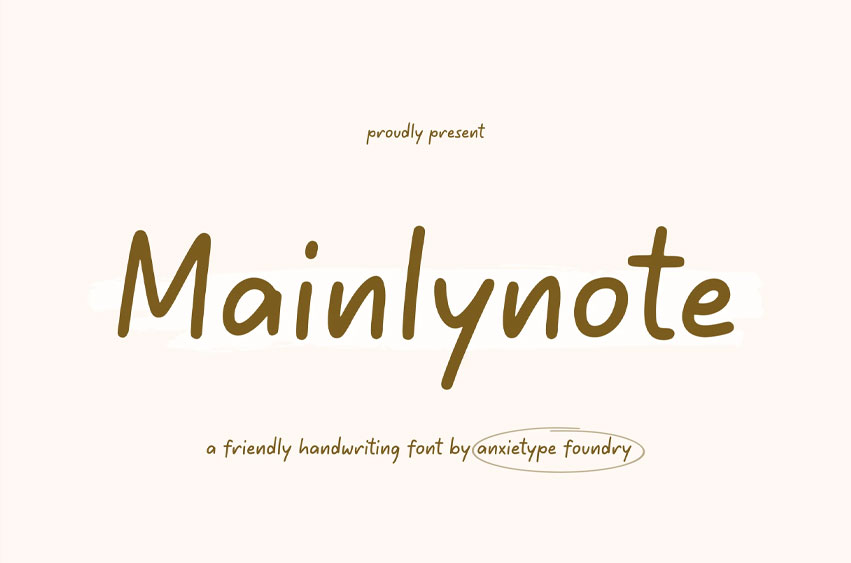
Mainly Note Font is a sleek, versatile font meticulously crafted by Anxietype Foundry. Perfect for a wide range of creative needs, such as captivating quote designs, stylish birthday layouts, invitations, books, planners, and more.
Imbue your design projects with the distinct aesthetics of “Mainly Note,” enabling you to bring your unique vision to life.
- Alternate, Ligature, Long-end Swash, and Underline Glyphs